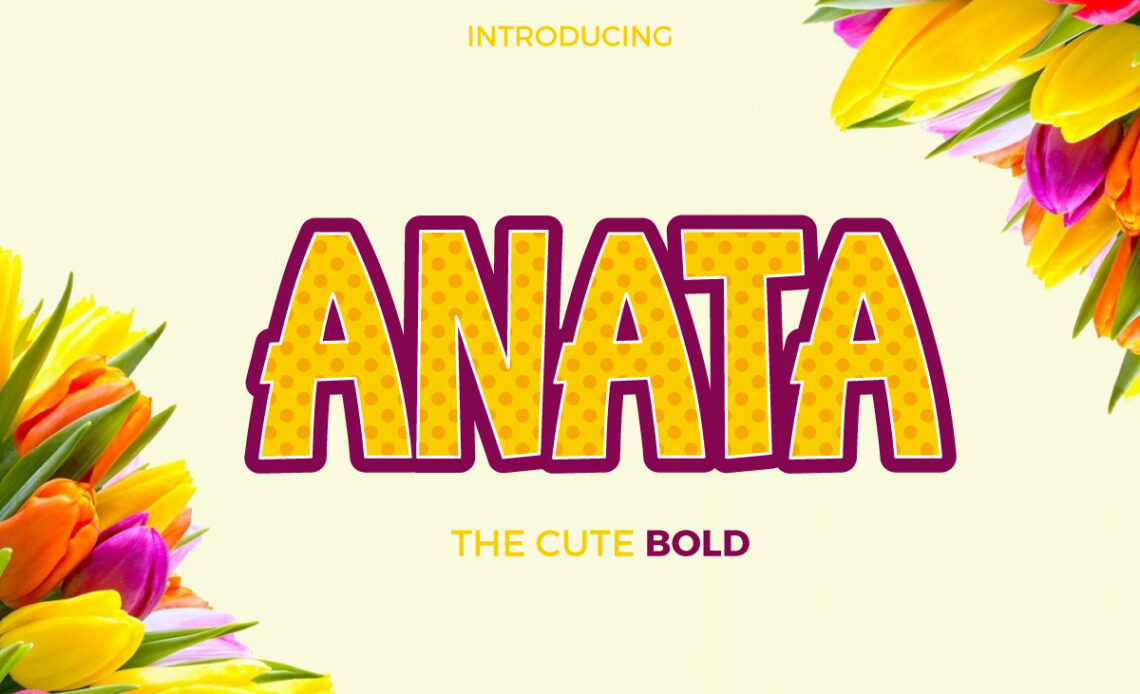
Introducing Anatawa Font, a captivating and versatile display font created by Kang1993. With its bold and unique design, this font is perfect for adding a touch of creativity to your projects. Whether you're designing a logo, creating eye-catching banners, or even crafting social media posts, Anatawa Font has got you covered.
Unleash your imagination and let Anatawa Font elevate your designs to the next level. This font is carefully crafted to capture attention and evoke emotions. Its captivating curves and powerful strokes will instantly draw the eyes of your audience, leaving a lasting impression.
Anatawa Font is the ultimate solution for those seeking a font that stands out from the crowd. Its versatility allows it to be used in various projects, from branding and packaging to website headers and invitations. No matter the medium, this font is sure to make a statement.
Express your creativity with Anatawa Font's wide range of stylistic alternatives and ligatures. Each letter is meticulously designed, ensuring a seamless and cohesive look. With this font, you have the freedom to experiment and create unique combinations that reflect your brand's personality or capture the essence of your message.
Captivate your audience and evoke emotions with Anatawa Font's extensive character set. It supports multiple languages, making it an excellent choice for international projects. Break language barriers and engage with a global audience effortlessly.
In addition to its stunning visual appeal, Anatawa Font also offers exceptional legibility. Each character is carefully optimized to ensure readability, whether displayed at large sizes or used in body text. Your message will shine through crystal clear, ensuring that your audience receives your intended meaning.